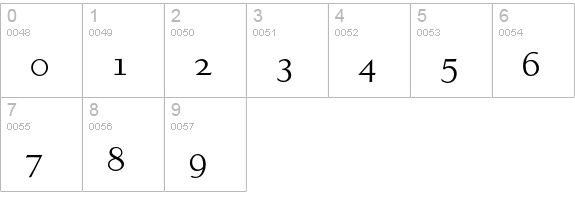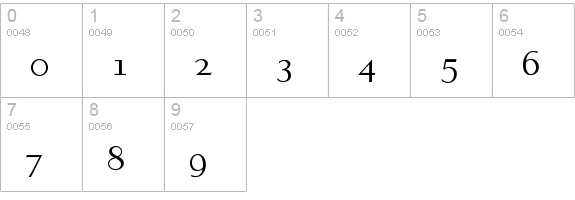
AlbertanH-SC Font Details
AlbertanH-SC font is a classic and timeless typeface that exudes elegance and sophistication. With its refined serifs and clean lines, this font is perfect for adding a touch of sophistication to any project. Whether you are designing a logo, creating a wedding invitation, or working on a branding project, AlbertanH-SC font will elevate your design to the next level. What sets AlbertanH-SC font apart is its versatility and readability. It is easy on the eyes and can be used for both large headlines and body text. The font's balanced proportions make it ideal for a wide range of applications, from print materials to digital designs. Best of all, AlbertanH-SC font is free to download at FontsMarket.com. So you can easily access this high-quality typeface without breaking the bank. Don't miss out on the opportunity to enhance your designs with the timeless elegance of AlbertanH-SC font. Download it today and take your projects to new heights!